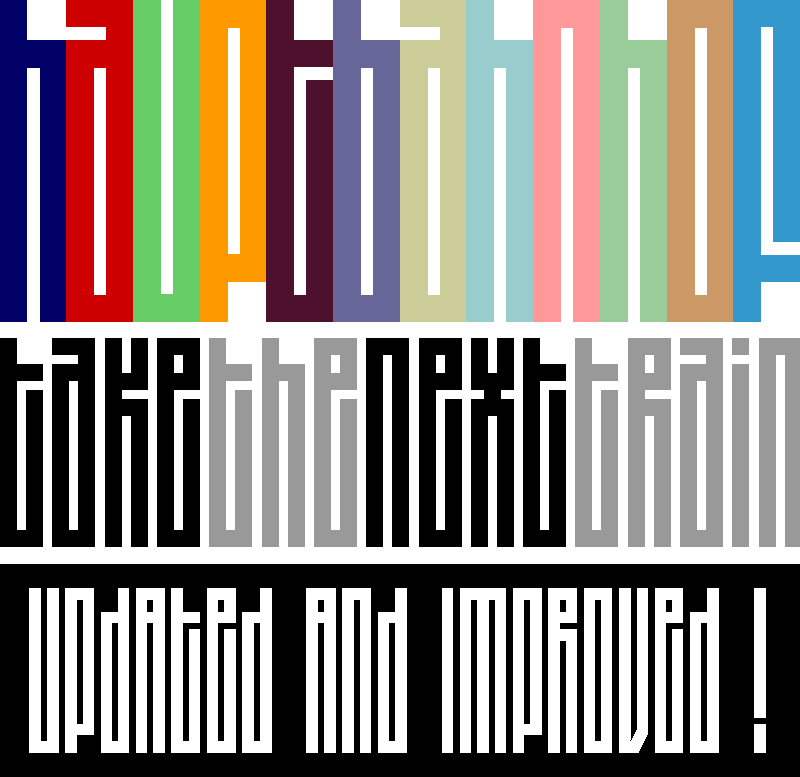
Hauptbahnhof is inspired by graffiti from my area. This font supports many languages and is free for personal use. If you wish to use it for a commercial purpose, please contact me: contact [at] fthafm [dot] com Facebook: http://www.facebook.com/fthafm | Website: http://www.fthafm.com/ |